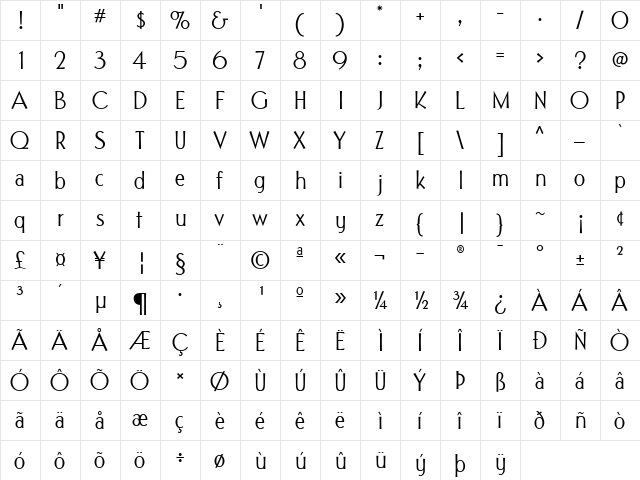
PanoramaSG Regular
| Foundry | Spiece Graphics |
Design Context for PanoramaSG Typeface
PanoramaSG is a composed and adaptable typeface that performs quietly and consistently across a wide range of design contexts.